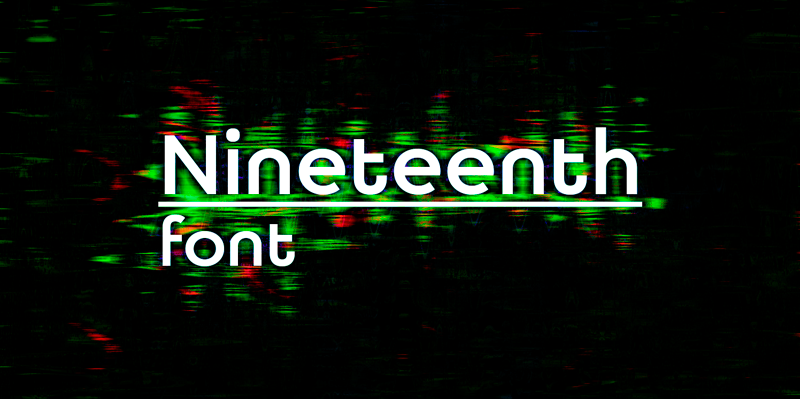
Font name: | Nineteenth |
Author: | Pj154 |
Nineteenth is a font inspired by the classic sans-serif fonts of the Bauhaus school. Supports extended Latin. This font is free for personal use only Commercial use: purchase the license fontbundles.net/pj154 crella.net/store/pj154/ Contact me if you have any questions pj154f@gmail.com www.behance.net/Pj154 Copyright � 2019 by Igor Kosinsky. All rights reserved. |